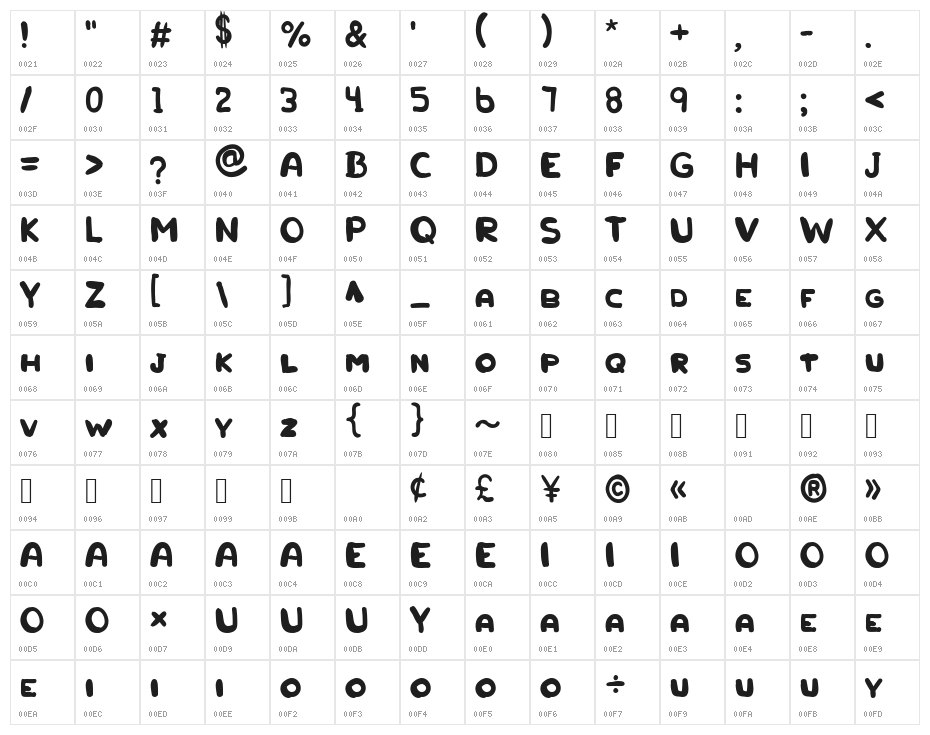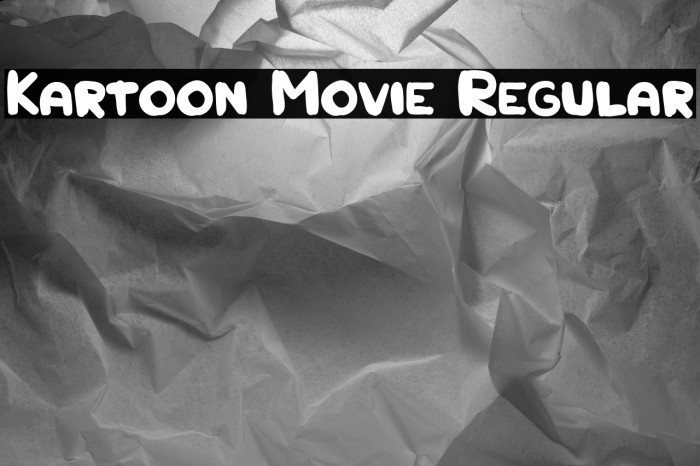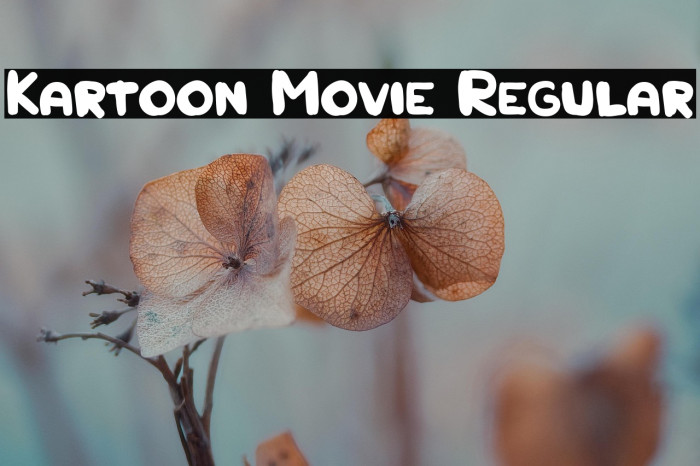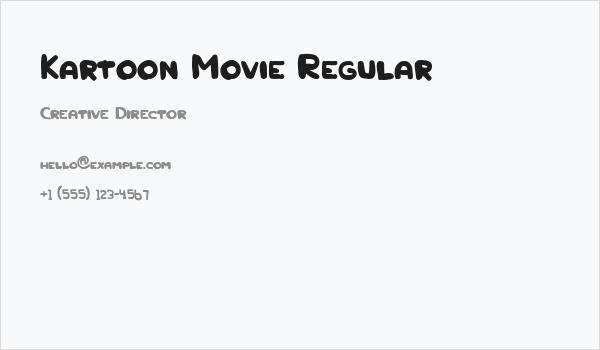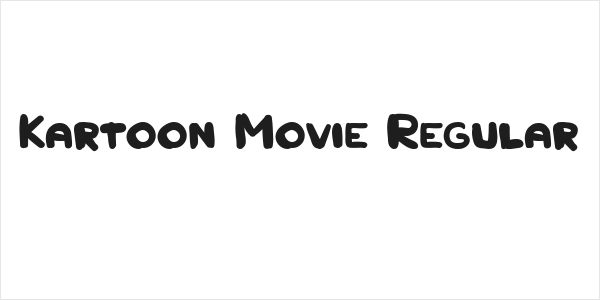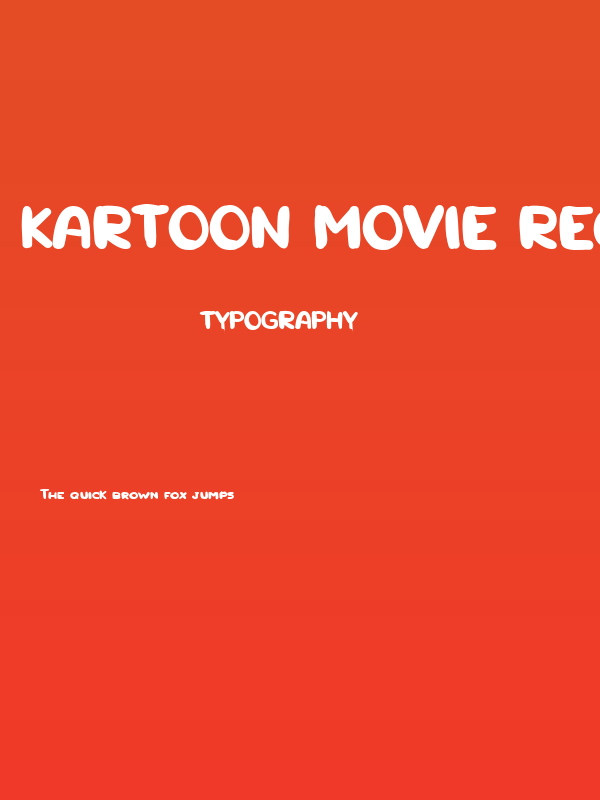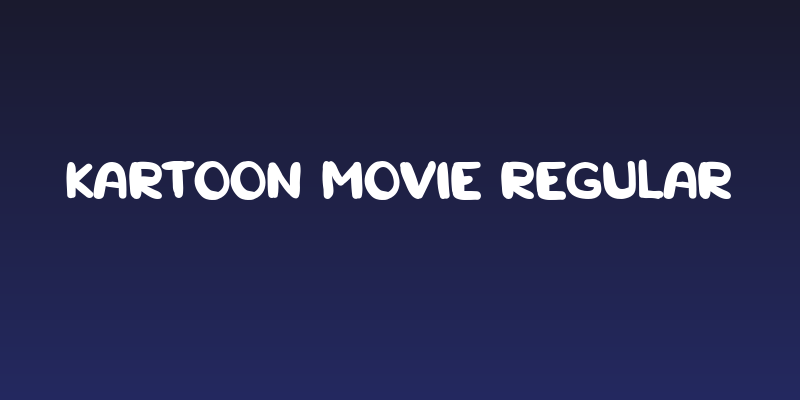
Kartoon Movie Regular Font
Kartoon Movie Regular Description
This playful and bold font features rounded, cartoon-like characters that evoke a sense of fun and whimsy. The letters are thick and slightly irregular, giving them a hand-drawn appearance that is both approachable and lively. The uppercase and lowercase letters maintain a consistent style, with a slight tilt that adds to the dynamic feel. Numbers and special characters are equally bold and expressive, making them stand out. The overall design is perfect for projects that require a touch of humor and creativity, such as children's books, comic strips, or playful branding.
| Proposed Projects | Ideal for children's books, comic strips, playful branding, and creative posters. |